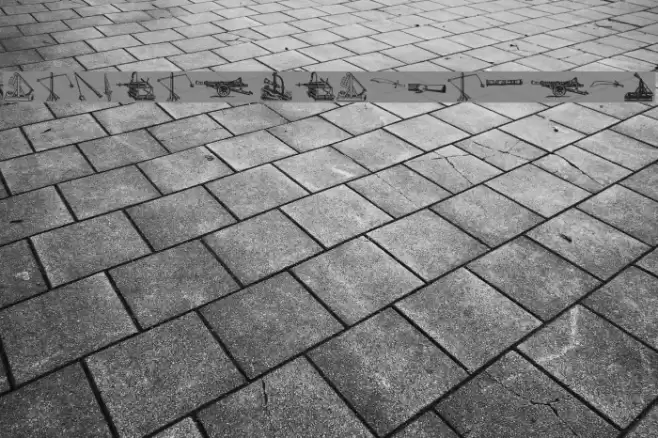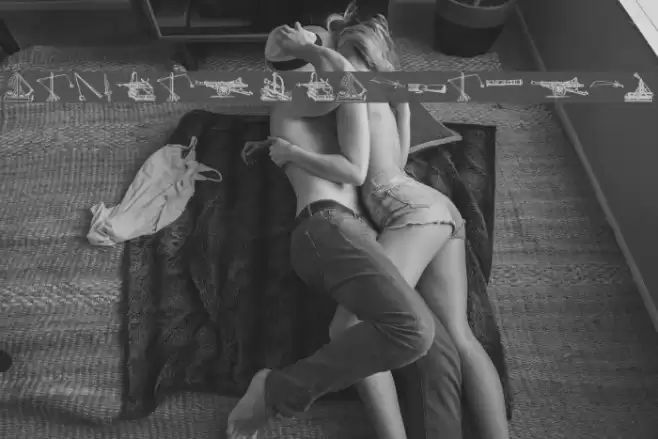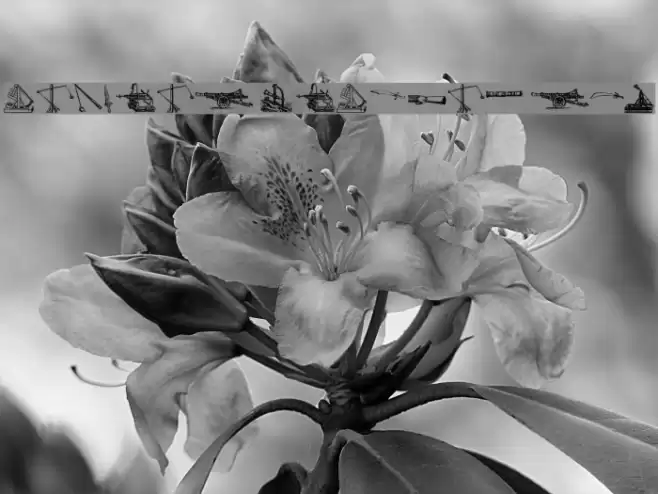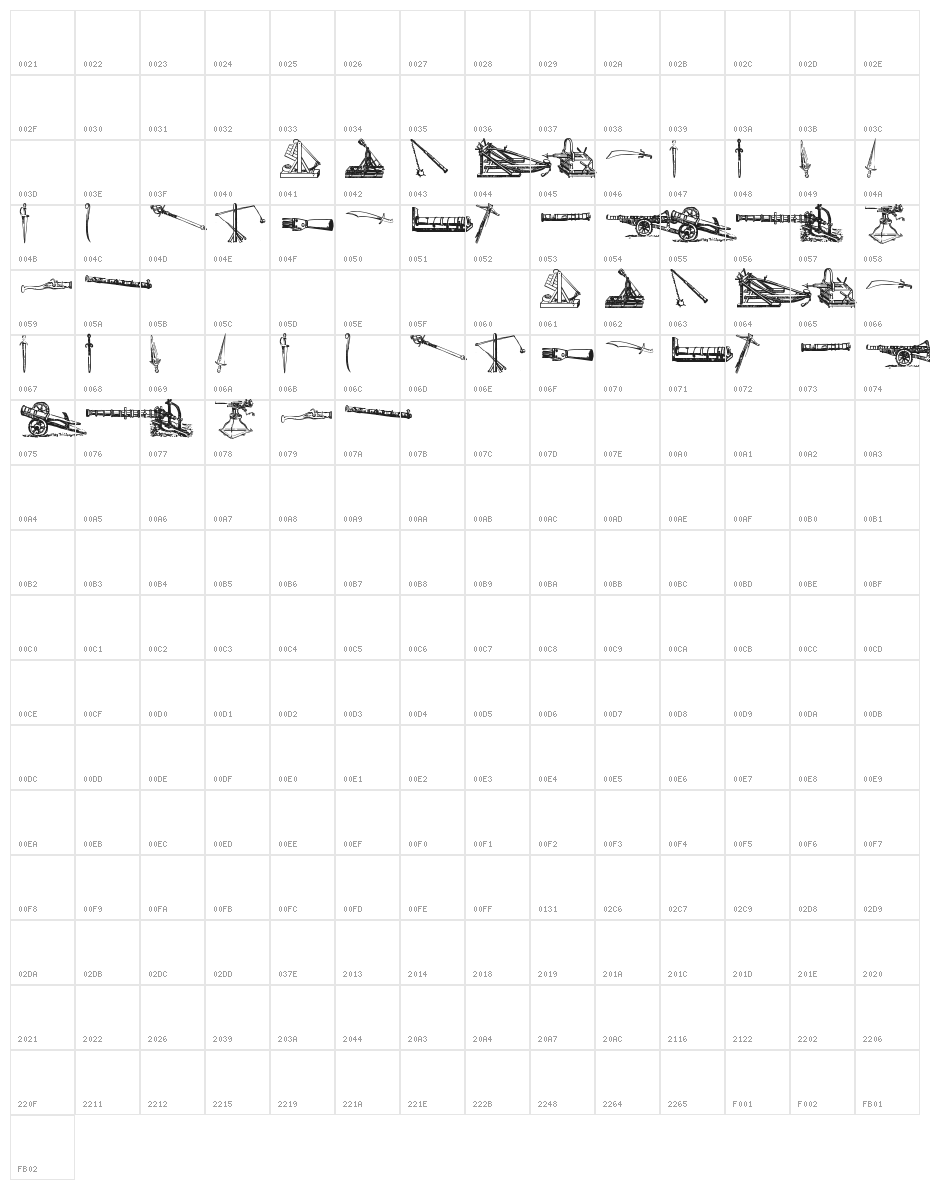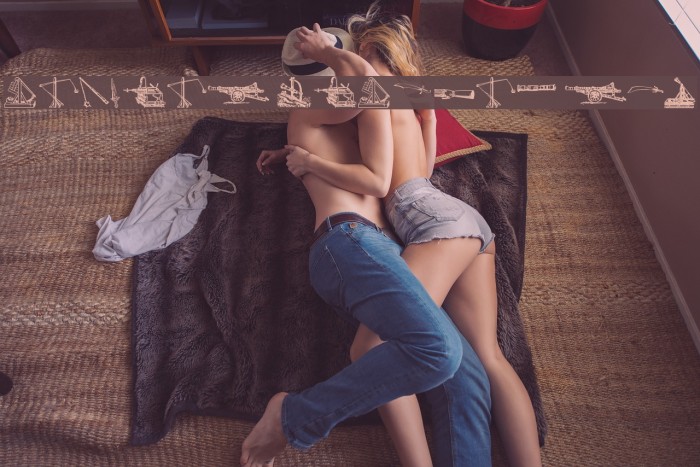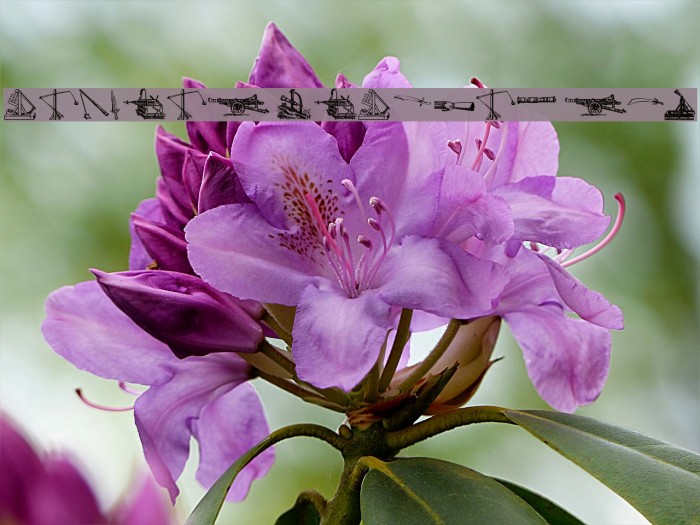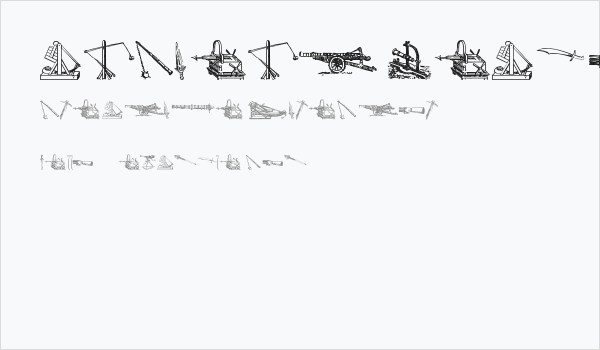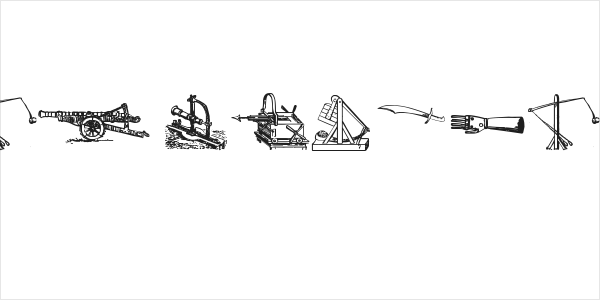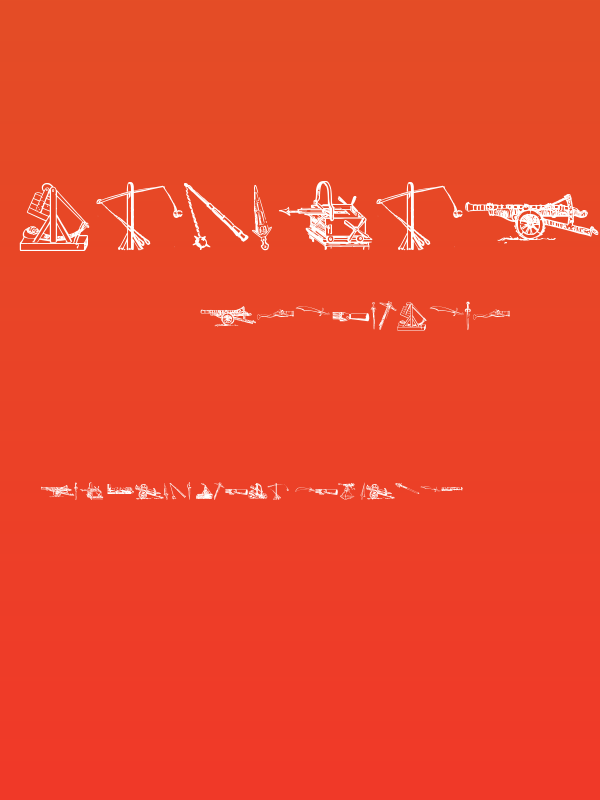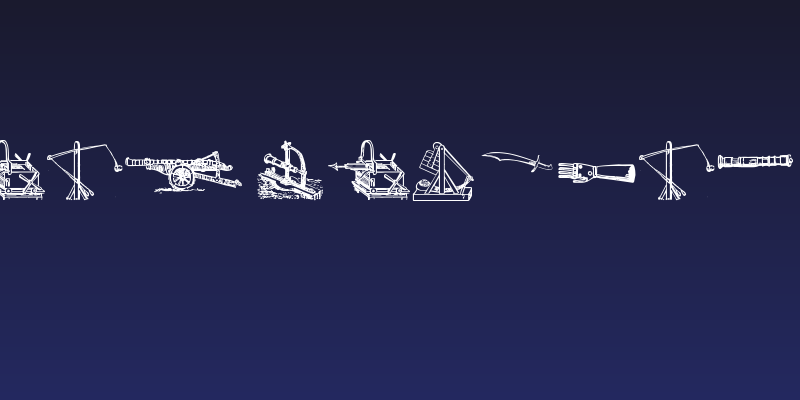
Ancient Weapons tfb Font
Ancient Weapons tfb Description
This font features a series of intricate illustrations depicting ancient weapons, including catapults, swords, and other medieval armaments. Each character is represented by a detailed and artistic rendering of a different weapon, making it highly decorative and thematic. The illustrations are rich in detail, capturing the essence of historical warfare tools with a focus on authenticity and artistic flair. The style is consistent throughout, providing a cohesive look that is both visually engaging and historically inspired. This font is not designed for traditional text but rather as a collection of images that can be used for thematic projects.
A decorative font featuring detailed illustrations of ancient weapons from Dingbats fonts.
- Proposed Projects: Ideal for historical presentations, themed event invitations, educational materials on medieval history, or as decorative elements in graphic design projects.
- Use Case: Logos, Decorative elements, Themed designs